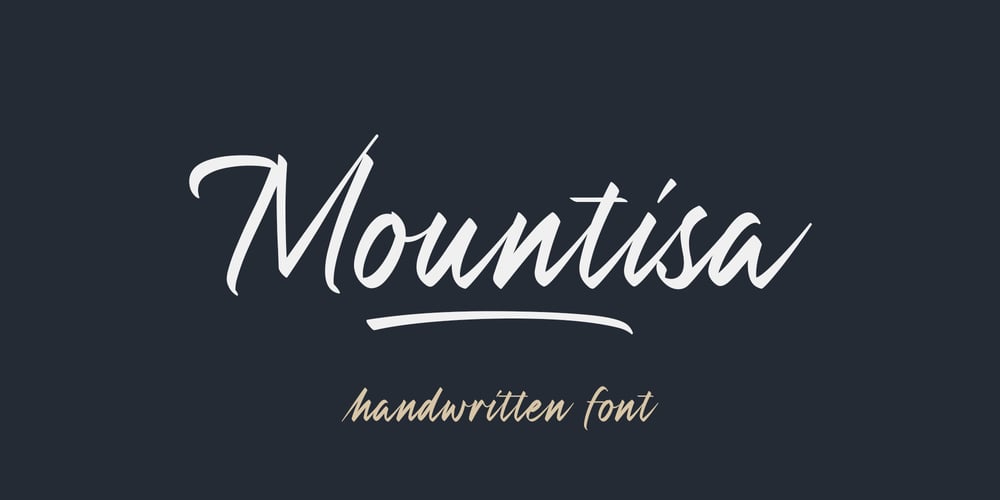
Mountisa Font Family was designed by Dwi Ahidian and published by Lemonthe. Mountisa contains 1 styles and family package options. Mountisa is a script font with a dynamic and energetic style. It’s perfect for signature, stationery, photography, social media posts, product packaging, greeting cards, and every other design that needs a unique and striking font.